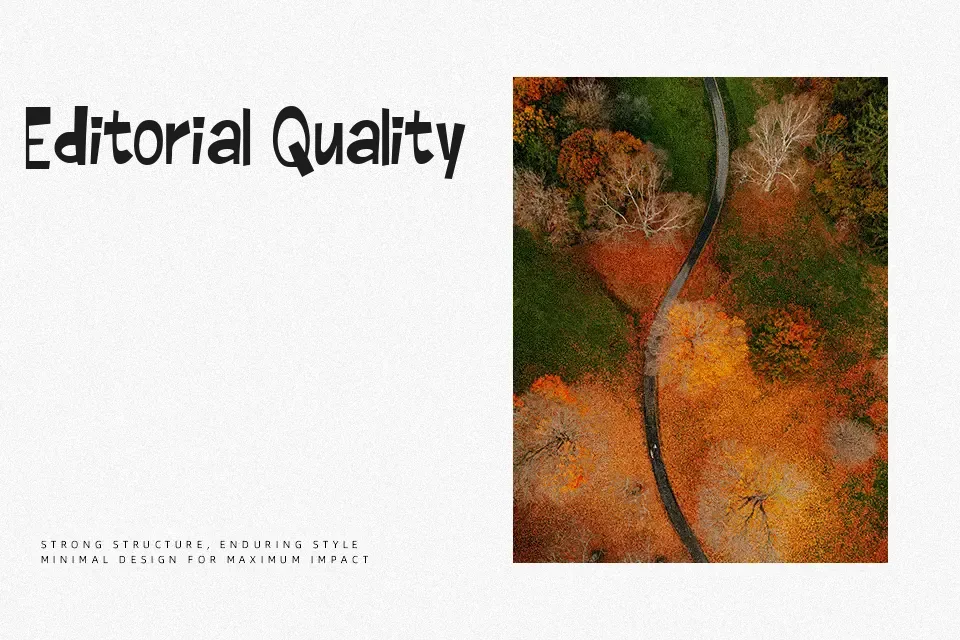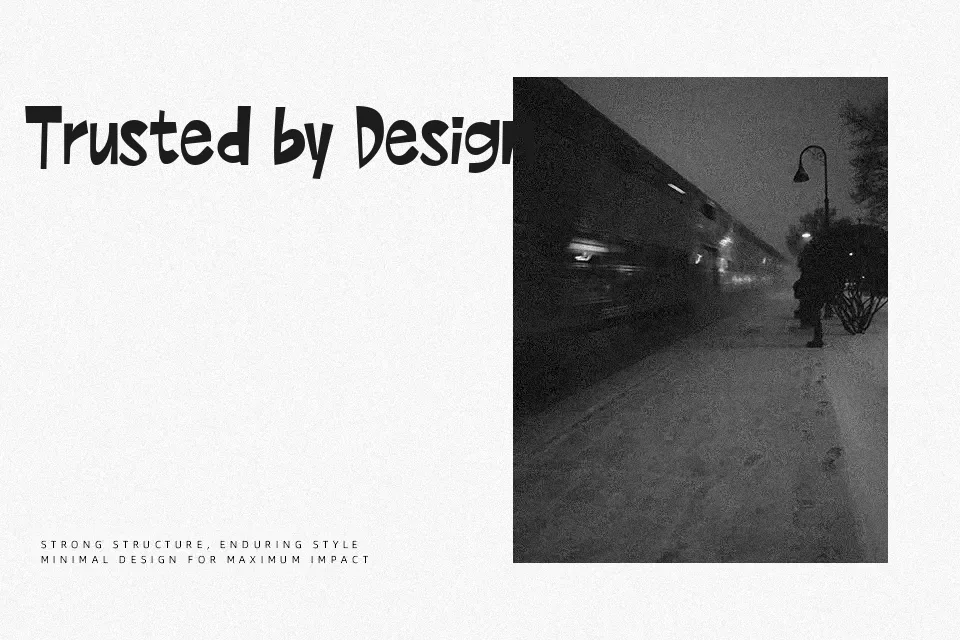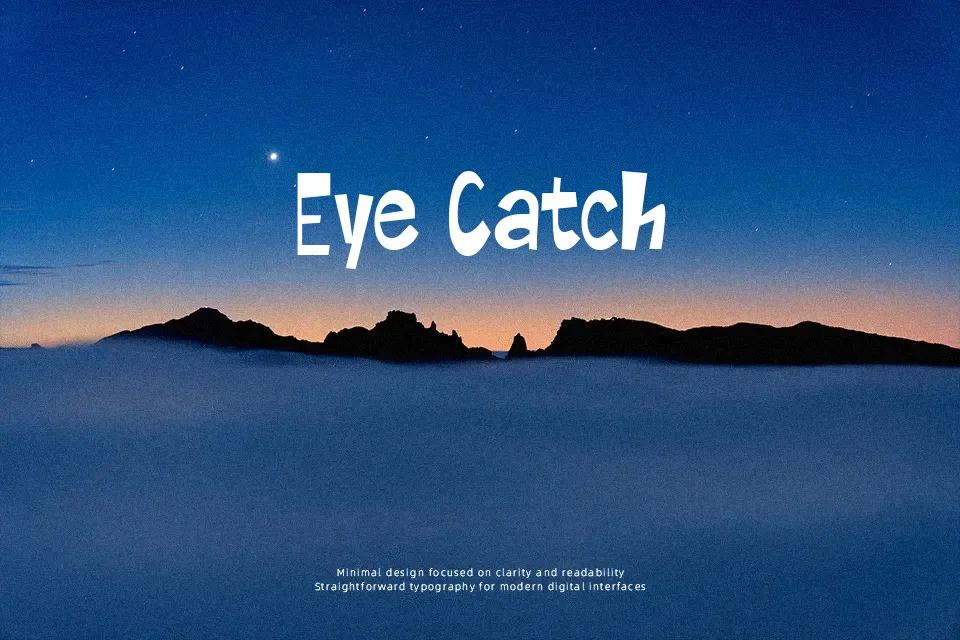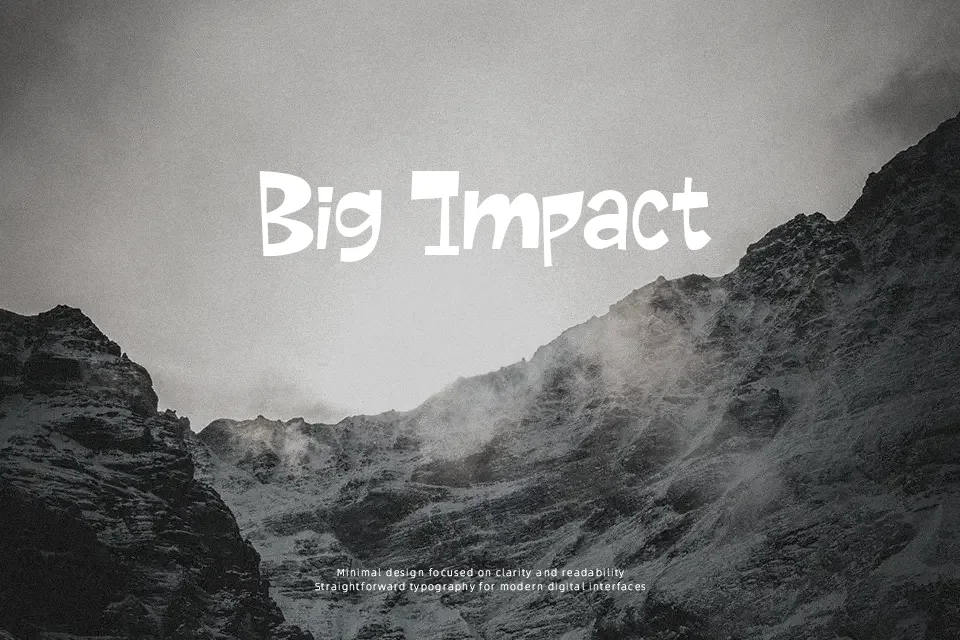
The Jungle Beast Font
The Jungle Beast Font delivers an animated, punchy presence through heavy stroke weights, softened comic contours, and tight character spacing. Substantial letterforms command attention across outdoor banners, youth apparel, and children’s book titles, offering crisp legibility at generous display scales. Consistent stroke balance gives the alphabet a lively rhythm across short headers and badge graphics. However, the sheer mass of the glyphs and dense inter-character spacing make this design unsuitable for running body text or miniature user interfaces, where internal counters easily fill in.
Best For: animated poster titles, children’s game packaging, themed merchandise graphics, bold food truck signage
Not Ideal For: continuous body text, mobile interface labels, dense legal disclaimers, multi-column editorial paragraphs